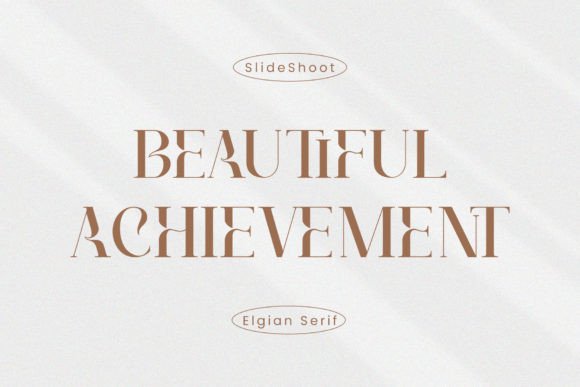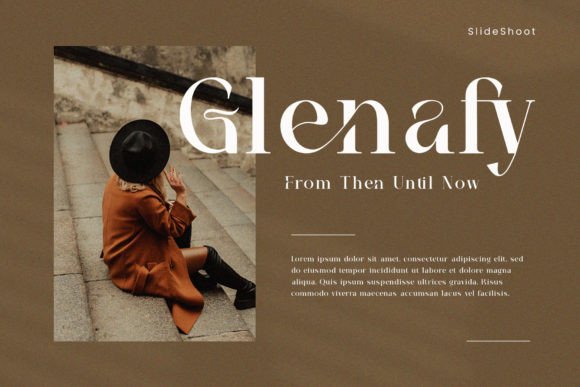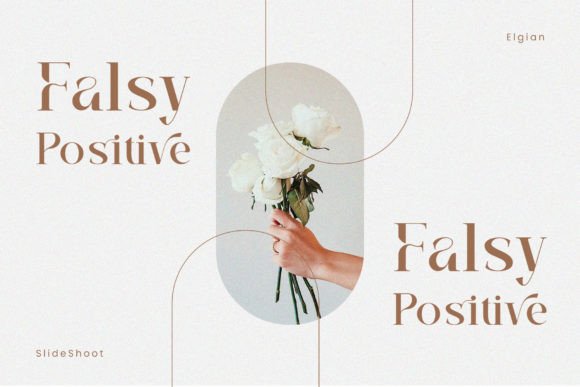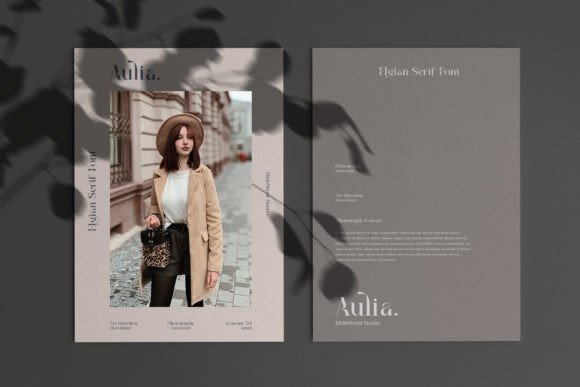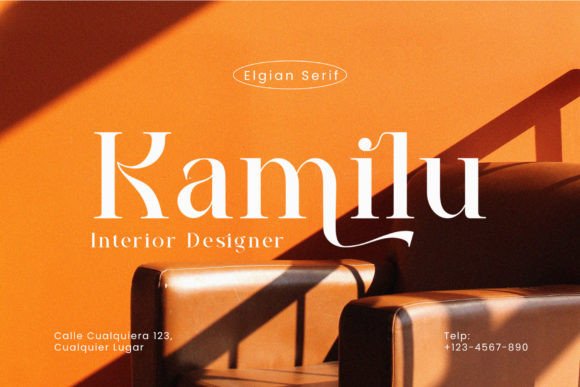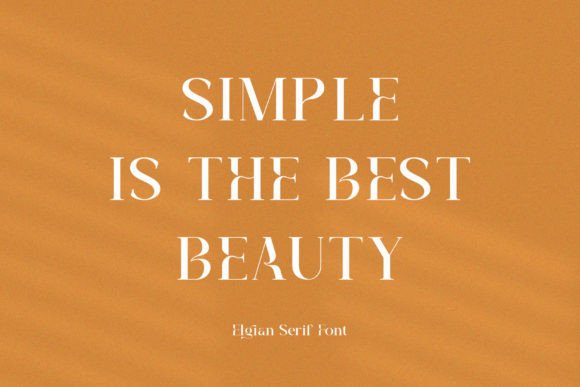
The Elegance of Elgian Font: Elevate Your Designs with Luxury and Refinement
I’ll never forget the time I was working on a high-end branding project for a luxury fashion client. I had spent hours pouring over design concepts, but something was missing – the perfect font. That’s when I stumbled upon Elgian, a serif font that exudes a sense of luxury and refinement. Its refined serifs and elegant proportions gave it a regal presence, making it the perfect fit for my client’s exclusive brand. In this article, I’ll share my experience with Elgian, its features, and how to make the most of it in your designs.
An Honest Review of Elgian Font
What I Love About Elgian ✨
- ✅ Elegant and refined serifs that add a touch of sophistication to any design
- ✅ Luxurious feel that’s perfect for high-end branding, packaging, and exclusive designs
- ✅ Versatile and works well for both digital and print designs
- ⚠️ Limited availability of stylistic alternates, which may limit creative experimentation
- ⚠️ May not be the best choice for body text or long-form content, as it’s designed for headlines and titles
The Designer Inspiration Behind Elgian
Elgian was designed with the goal of creating a font that exudes luxury and refinement. Its creator drew inspiration from classic serif fonts, while infusing it with a modern twist. The result is a font that feels both timeless and contemporary, making it perfect for high-end branding and exclusive designs.
| Font Name | Elgian Font |
| Author | Idea Studio |
| What is Elgian font best used for? | Elgian font is best used for high-end branding, packaging, and exclusive designs where a luxurious and refined feel is desired. |
| Is Elgian a versatile font? | Yes, Elgian is a versatile font that works well for both digital and print designs. |
| Can I use Elgian for body text? | While Elgian is highly legible, it’s designed for headlines and titles. For body text, consider using a font with more traditional proportions. |
| Does Elgian support OpenType features? | Yes, Elgian supports OpenType features, including ligatures and stylistic alternates. |